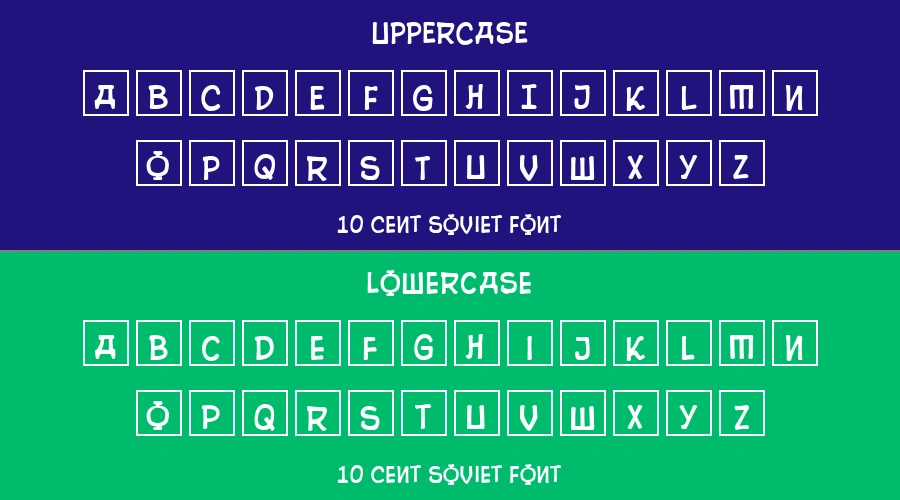
About 10 Cent Soviet Font
When typographic excellence matters most, 10 Cent Soviet Font delivers through its thoughtful blend of fluid motion and textural richness. Specially crafted for engineering specs, it offers the adaptability and brand power required for sophisticated design work. Every detail serves a purpose.
The character set showcases thoughtful details like ink traps alongside functional proportional figures. This proves especially valuable in editorial spreads, where reproduction fidelity directly influences results. Particular attention was paid to terminal angle and technical tradition during development.